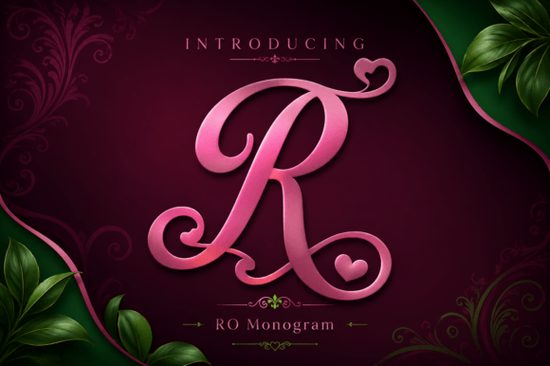
If you're looking for a decorative font that feels both timeless and fresh, Ro Monogram Font stands out as a thoughtful choice for designers and creatives who value elegance with a touch of romance. It’s not just another stylish letterform it’s a design with personality, perfect for projects where a personal, refined touch matters.
What makes Ro Monogram Font special?
At its core, Ro Monogram Font blends vintage charm with modern clarity. The design centers on the initials “R” and “O,” crafted with smooth, bold lines and delicate flourishes that give it a hand-drawn feel. Subtle heart details add a soft, feminine tone without overpowering the overall look. Whether used in wedding stationery or branding for a boutique skincare line, this font carries a quiet confidence like a well-tailored dress that turns heads without trying.
The script style is calligraphic but readable, making it ideal for both digital use and print. You can use it on packaging stickers, social media graphics, or even embroidered patches. Its versatility means it works across platforms, from Instagram posts to high-end product labels.
Where can I use Ro Monogram Font?
This font shines in creative projects that celebrate identity and beauty. Here are some real-world applications:
- Personalized gifts – Use it for custom mugs, tote bags, or name tags. The way the letters flow gives each piece a handmade quality.
- Craft business branding – Whether you sell handmade soaps or curated journals, Ro Monogram adds a unique signature to your brand.
How does it perform across different colors and sizes?
One of the strengths of this font is how well it adapts to color. Try it in bold black for strong contrast, or go for gold or silver to give a luxurious finish perfect for premium packaging. Pastel tones work beautifully too, especially when paired with floral or soft background textures.
It scales gracefully. At small sizes (like on a sticker), the details stay crisp. At larger sizes (for banners or posters), the flourishes remain elegant without becoming cluttered. Just be mindful of spacing adjust kerning slightly if needed for optimal balance.
Is it easy to use for beginners?
Why choose this over other monogram fonts?
While many monogram fonts focus on symmetry or minimalism, Ro Monogram leans into storytelling. The slight asymmetry in the “R” and the gentle curve of the “O” create a sense of movement like a whisper or a smile. It doesn’t shout, but it lingers in the mind.
Final thoughts: When should you pick this font?
If your project needs a touch of old-world grace with a modern twist especially one that feels personal and intentional Ro Monogram Font fits naturally. It’s not flashy, but it leaves an impression.
Before finalizing your design, test it in context. Try it on mockups of your product, invitation, or logo. See how it interacts with your chosen colors and layout. A little experimentation goes a long way.
When done right, a single font can shape how people see your work. Ro Monogram Font helps make that moment memorable without needing to say a word.